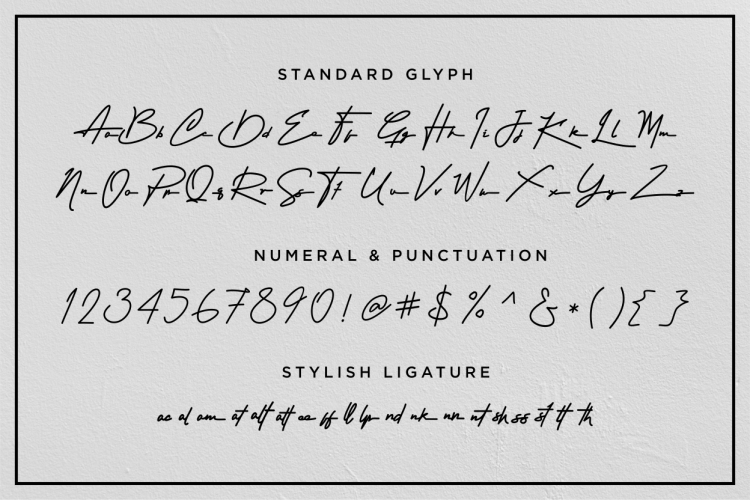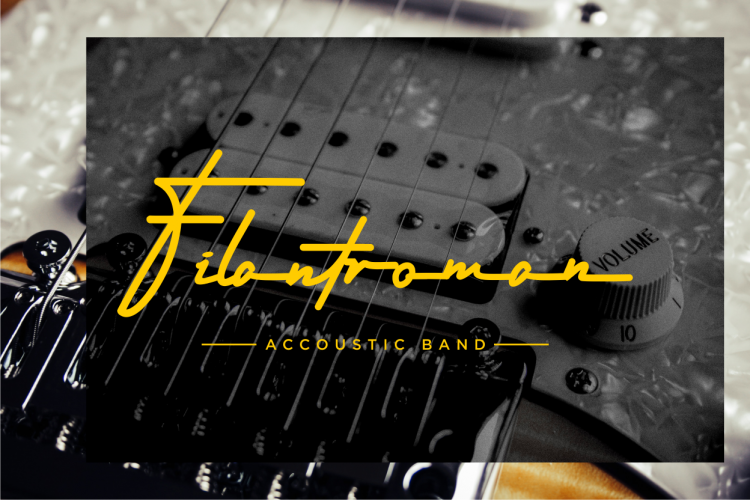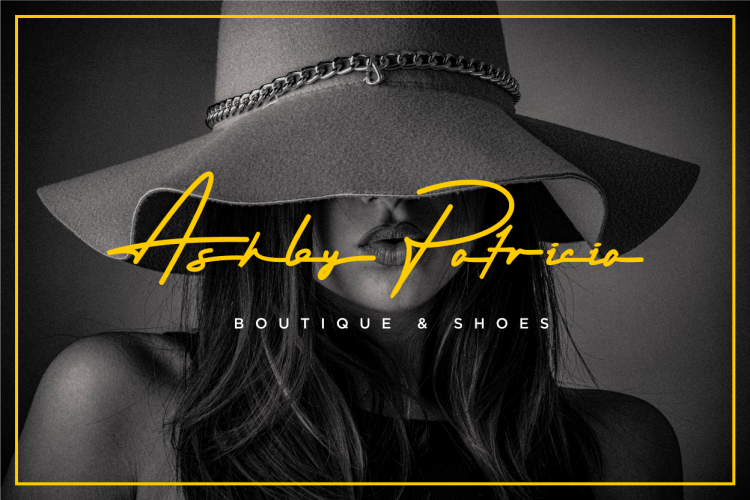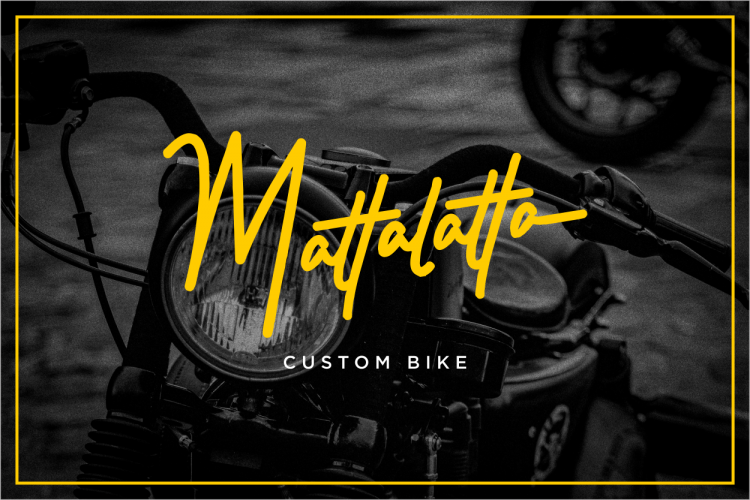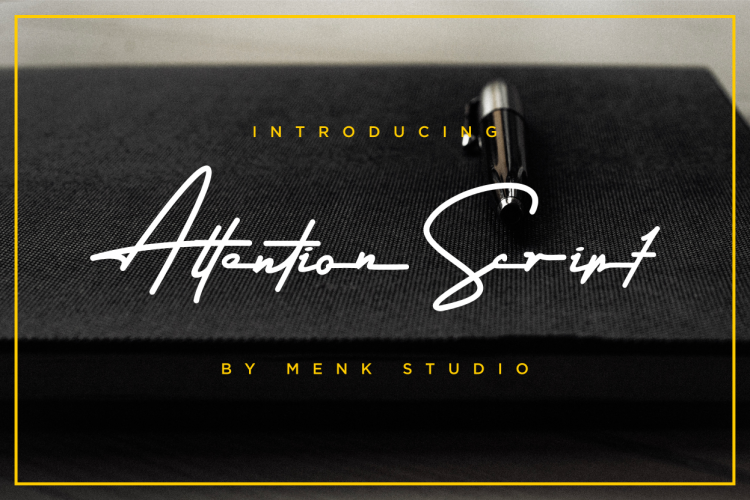
Attention Signature Font
Attention Signature Demo Font
This is casual-chic, hand-lettered script font, allowing you to create a real hand-written look to your projects. Introducing Attention Font. Attention Signature Font – a new modern & fresh script with a handwritten and signature style make this font looks elegant, natural, stylish and perfect for any awesome projects that need handwriting taste.
This font are perfect for wedding invitation or your blog. Also with their help, you can create a logo or beautiful frame for your home. Or just use for your small business, book covers, stationery, marketing, magazines and more.